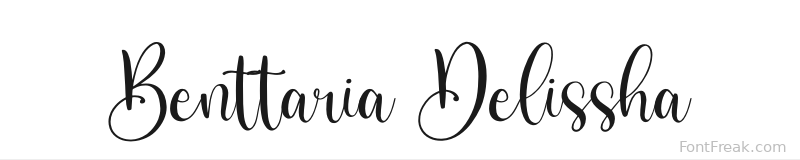
Benttaria Delissha
About Benttaria Delissha
Benttaria Delissha, crafted by Perspectype Studio, is a charming script font that embodies elegance and sophistication. Released in 2021, this freeware typeface features a graceful flow, characterized by its fluid strokes and delicate curves. The stroke weight varies subtly, creating a sense of rhythm and movement that is visually appealing. The high contrast between thick and thin lines adds a touch of refinement, while the overall spacing ensures clarity and legibility, making it suitable for various applications.
This font is ideal for a range of creative projects. Its romantic flair makes it perfect for wedding invitations, where it can beautifully convey love and celebration. Additionally, Benttaria Delissha works wonderfully for restaurant menus, adding an inviting and upscale touch to the dining experience. Graphic designers will appreciate its potential for use in branding materials, particularly for businesses aiming to project a stylish and modern image. Furthermore, it can enhance the visual appeal of social media graphics, helping content creators stand out in a crowded digital landscape.
The target audience for this font includes graphic designers, small business owners, and content creators who seek to elevate their projects with a touch of personality and elegance. Benttaria Delissha offers a unique blend of sophistication and versatility, allowing users to create stunning designs that resonate with their audience.
What sets the Benttaria Delissha font apart is its ability to convey warmth and beauty while maintaining high readability. This makes it a standout choice for anyone looking to add a personal touch to their work. If you’re interested in incorporating this exquisite font into your designs, you can easily access the Benttaria Delissha font free download, making it an excellent addition to your typography toolkit.